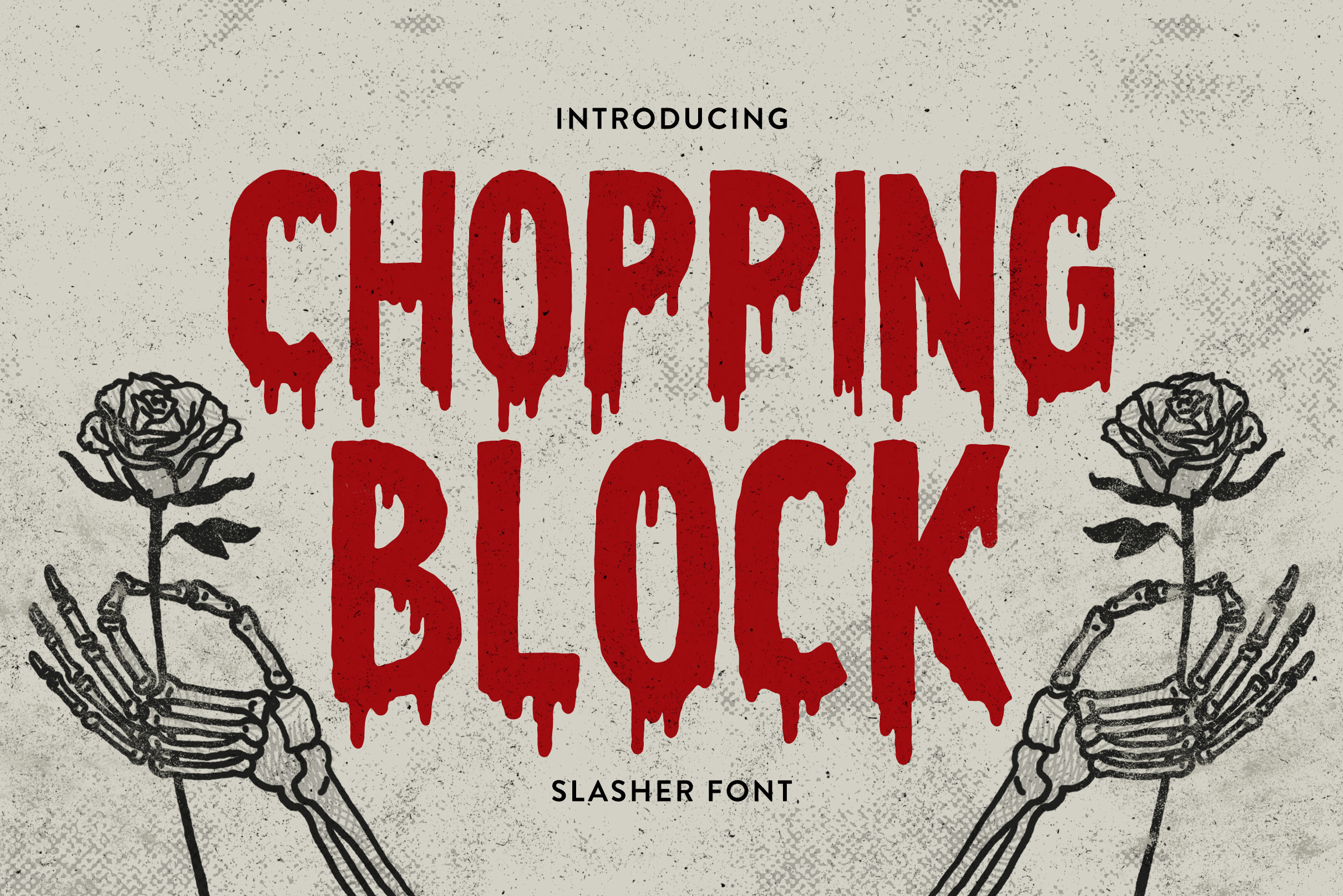
Chopping Block Font
Chopping Block is a spooky, scary, blood curdling font for all your gruesome typography needs - Halloween parties, horror film festivals, maybe a gothic wedding invitation? Playful or horrifying, let your audience know what they're in for...